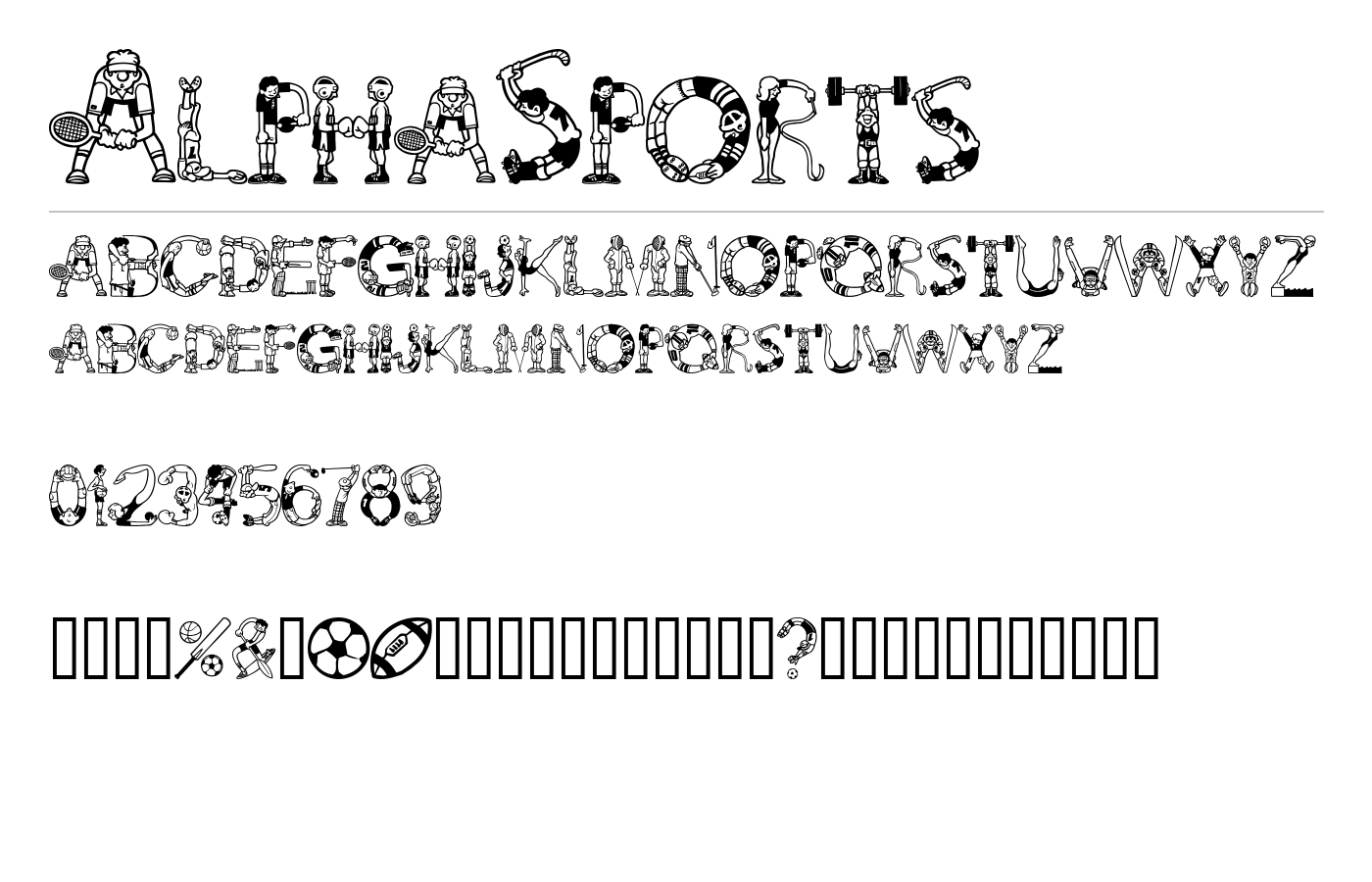
AlphaSports is a playful and decorative display font created entirely from illustrations of athletes and sports equipment forming each letter and number. This unique, bold design brings lively energy and a sense of fun, making it perfect for sports-related branding, children’s materials, or dynamic event posters where a vibrant and eye-catching style is desired. Its intricate shapes capture attention well but work best in larger sizes for headlines or logos rather than body text.
AlphaSports Font